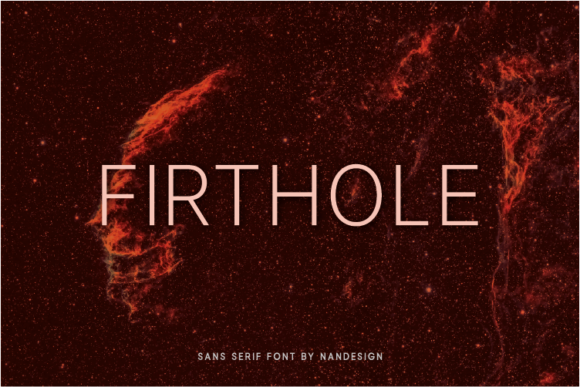
Unleash the allure of Firthole, a sans serif masterpiece crafted to ignite your designs with undeniable charisma. Its sleek lines and captivating curves will transform your creative endeavors into captivating visual experiences.
Immerse yourself in a world of typography where simplicity meets sophistication. Firthole's versatile nature adapts seamlessly to any project, from captivating displays that demand attention to elegant invitations that whisper a tale of timeless romance.
Let your imagination soar as you explore Firthole's boundless potential. Create headers that command respect, save-the-dates that ignite anticipation, and wedding invitations that evoke the magic of the moment.
With Nan Design's meticulous attention to detail, Firthole empowers you to express your unique style with unparalleled elegance. Its clean strokes and graceful curves evoke a sense of effortless beauty that will elevate your designs to new heights.
Embrace Firthole, the ultimate font companion for designers seeking to make an unforgettable impact. Its versatility and allure will empower you to create designs that captivate, inspire, and leave a lasting impression on every beholder.